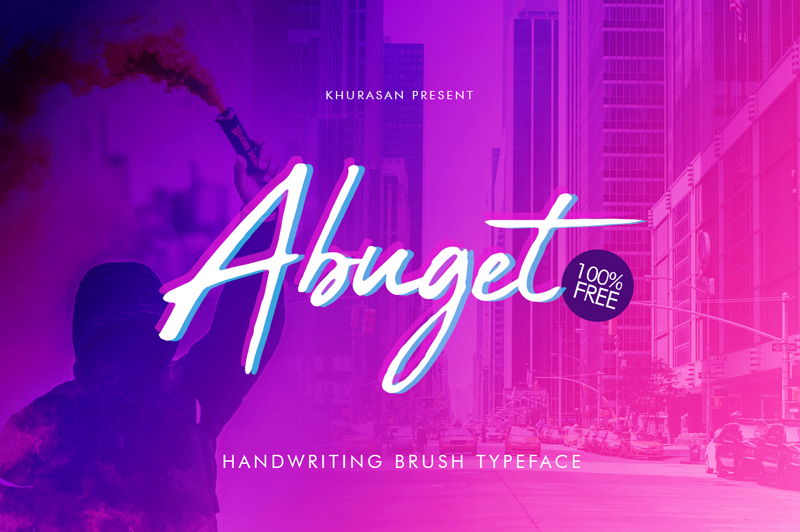
Abuget Brush Typeface
Font unique brush stroke that is suitable for the project design t-shirts, posters, logos, and professional design of your project.
| Classification: | Brush Fonts, Handwritten Fonts, Script Fonts |